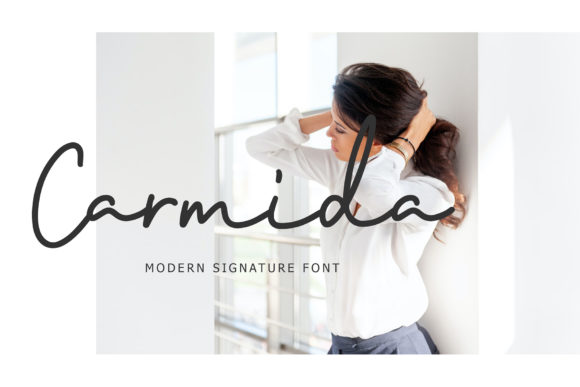
Carmida Font: Authentic Script for Creative Projects
Introduction to Carmida and Its Unique Appeal
Carmida results out of a stunning pairing of a brush pen and pencil that makes it look incredibly endearing and authentic. For designers seeking a typeface that balances raw artistic expression with digital precision, this font is a standout choice in the crowded script category. Whether you are searching for a Carmida free download for personal experimentation or evaluating it for a client project, understanding its unique characteristics is essential. It captures the imperfect beauty of true handwriting, distinguishing itself from overly polished digital scripts.
This typeface belongs to the Script Handwritten category but offers a texture often missing in standard fonts. The interplay between bold brush strokes and delicate pencil lines creates a dynamic visual rhythm. When users look to download Carmida font free, they are typically drawn to this organic duality. It serves as an excellent entry point for those exploring premium aesthetics without immediate investment, though professional applications require careful consideration of licensing and versatility.
Design and Style Analysis of Carmida
The visual personality of Carmida is defined by its tactile quality. Unlike many digital scripts that rely on mathematical curves, this font retains the hesitation and pressure variance of a physical writing instrument. This authenticity makes it a top contender when searching for the best Script Handwritten fonts for use case scenarios requiring emotional resonance.
Letterform Structure and Texture
The letterforms exhibit a natural slant and varying baseline alignment, mimicking the way hand-lettering behaves on paper. The brush elements provide weight and anchor points, while the pencil textures add grit and detail. This combination prevents the font from appearing flat when scaled up for display purposes.
Weight Distribution and Spacing
Spacing in handwritten fonts can often be problematic, but Carmida manages kerning that feels intentional rather than automated. The weight distribution shifts dramatically within single characters, creating high contrast that enhances legibility at larger sizes. However, designers should note that this intricate detailing may lose fidelity at very small point sizes, making it primarily a display typeface rather than a body text solution.
Best Uses for Carmida in Professional Design
Versatility is key for any professional Fonts font, and Carmida excels in specific niches where warmth and approachability are paramount. Below are the most effective applications for this typeface.
Carmida for Wedding Invitations and Typography
Wedding stationery demands elegance mixed with intimacy. Carmida for wedding invitations/cards/typography works exceptionally well because the pencil texture suggests a personal touch, as if the invitation were hand-addressed by the couple themselves. It pairs beautifully with textured card stocks and foil stamping, bridging the gap between traditional calligraphy and modern design trends.
Carmida for Branding and Logo Design
When establishing a brand identity for artisanal products, boutiques, or lifestyle influencers, generic serifs often feel too corporate. Using Carmida for branding injects instant personality into wordmarks and logos. The unique ligatures and stroke variations ensure that the logo remains distinctive. For Carmida for logo design, consider customizing specific letters to enhance uniqueness and secure trademark potential.
Carmida for Posters and Social Media Graphics
Social media feeds are saturated with clean sans-serifs; a textured script stops the scroll. Carmida for posters/social media/packaging provides the necessary visual hook for quotes, announcements, and product labels. On packaging, specifically for organic cosmetics or handmade foods, the font communicates natural ingredients and craftsmanship before the consumer even reads the copy.
Font Pairing Strategies and Combinations
A common question among designers is what fonts pair well with Carmida? Because Carmida has such strong character, it requires supportive partners that do not compete for attention. Effective Carmida font pairing relies on contrast in style and simplicity in form.
These combinations represent some of the best font combinations with Carmida currently trending in graphic design, ensuring your work feels current yet timeless.